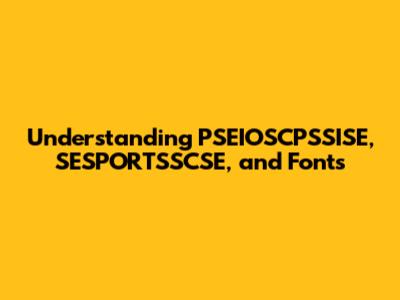
Let's dive into the world of PSEIOSCPSSISE, SESPORTSSCSE, and fonts! These terms might sound like alphabet soup at first, but we're going to break them down in a way that's easy to understand. Whether you're a student, a designer, or just someone curious about technology and typography, this guide is for you. We'll explore what each of these terms means, where you might encounter them, and why they're important. So, buckle up, and let's get started!
What is PSEIOSCPSSISE?
Okay, guys, let's be real – PSEIOSCPSSISE looks like someone mashed their keyboard! In reality, it is likely an acronym or abbreviation, possibly specific to a particular organization, industry, or field of study. Without more context, it's tough to nail down a precise definition. However, we can approach it logically.
Think about how acronyms are formed. They usually take the first letter (or sometimes the first few letters) of a series of words. So, PSEIOSCPSSISE probably stands for something like "Project on Software Engineering, Information and Operating Systems, Computer Programming, Software Systems, Information Systems Engineering" – but that's just a guess! It could be something totally different.
If you encounter this term, the best thing to do is look for context. Where did you see or hear it? Was it in a document, a website, a conversation? The surrounding information might give you clues about its meaning. For instance, if you saw it in a research paper about cloud computing, it probably relates to that field.
It's also possible that PSEIOSCPSSISE is a proprietary term used within a specific company or organization. In that case, you might need to consult internal resources or ask someone who works there to find out what it means. Don't be afraid to ask! People are usually happy to explain things if you show genuine curiosity.
In summary, while we can't definitively say what PSEIOSCPSSISE means without more information, understanding how acronyms are formed and looking for context can help you decipher its meaning. And remember, when in doubt, ask!
Deciphering SESPORTSSCSE
Alright, next up, we have SESPORTSSCSE. Just like PSEIOSCPSSISE, this term appears to be an acronym or abbreviation. The key to understanding it lies in breaking it down and considering the context in which it's used. Unlike common abbreviations, this looks like a specific acronym used in a niche field. If you've encountered this term, there's a good chance it relates to a particular industry, organization, or area of study.
Let's try to dissect it logically. Acronyms usually consist of the first letters of a series of words. Therefore, SESPORTSSCSE could potentially stand for something like "System for Electronic Sports, Programming, Organization, Reporting, Training, Software, Computer Science Education." However, this is merely an educated guess. It's crucial to consider the surrounding context to arrive at an accurate interpretation.
When you encounter SESPORTSSCSE, pay close attention to the context in which it appears. Is it in a document, on a website, or during a conversation? The surrounding information can offer valuable clues about its meaning. For instance, if you find it in a publication related to sports technology or e-sports, it likely pertains to that domain.
It's also plausible that SESPORTSSCSE is a proprietary term used internally within a specific company or institution. In such cases, consulting internal resources or seeking clarification from someone within the organization may be necessary to ascertain its precise meaning. Don't hesitate to inquire! People are generally willing to provide explanations if you demonstrate sincere interest.
In conclusion, while the exact meaning of SESPORTSSCSE remains uncertain without additional information, understanding the principles of acronym formation and examining the context in which it's used can aid in its interpretation. And always remember, when faced with uncertainty, don't hesitate to ask for clarification!
All About Fonts
Now, let's move on to something a bit more familiar: fonts! Unlike the previous terms, fonts are a fundamental part of our daily lives, whether we realize it or not. Fonts are essentially the style and appearance of text. They determine how letters, numbers, and symbols look on a page or screen. Choosing the right font can significantly impact the readability, aesthetics, and overall message of your text.
There are countless fonts available, each with its own unique characteristics. Some fonts are classic and elegant, like Times New Roman, which is often used in books and academic papers. Others are modern and playful, like Comic Sans MS, which, despite its popularity, is often frowned upon by designers for its informal and somewhat childish appearance. And then there are fonts that are specifically designed for certain purposes, such as coding fonts, which prioritize clarity and distinguishability of characters.
Fonts are typically categorized into several main types: serif, sans-serif, script, and decorative. Serif fonts have small decorative strokes at the end of each character, which are called serifs. These fonts are often considered more traditional and readable for large blocks of text. Sans-serif fonts, on the other hand, do not have these strokes and tend to look more modern and clean. They are often used for headings, websites, and other digital media.